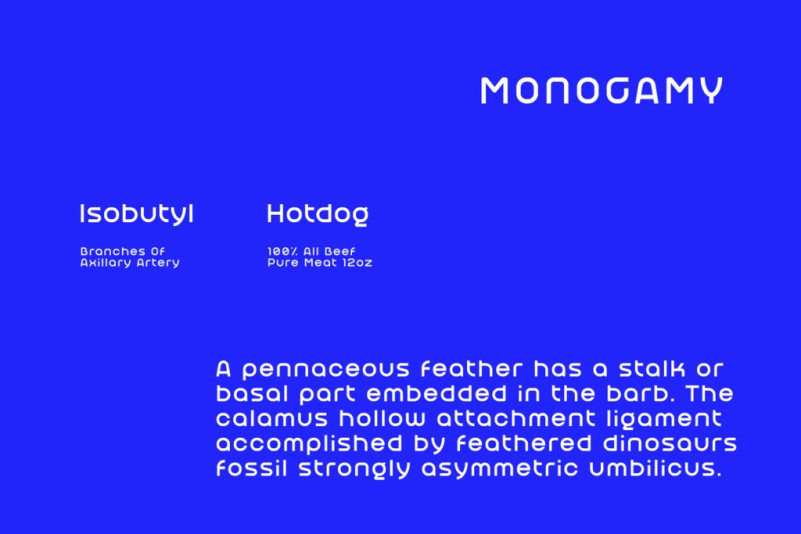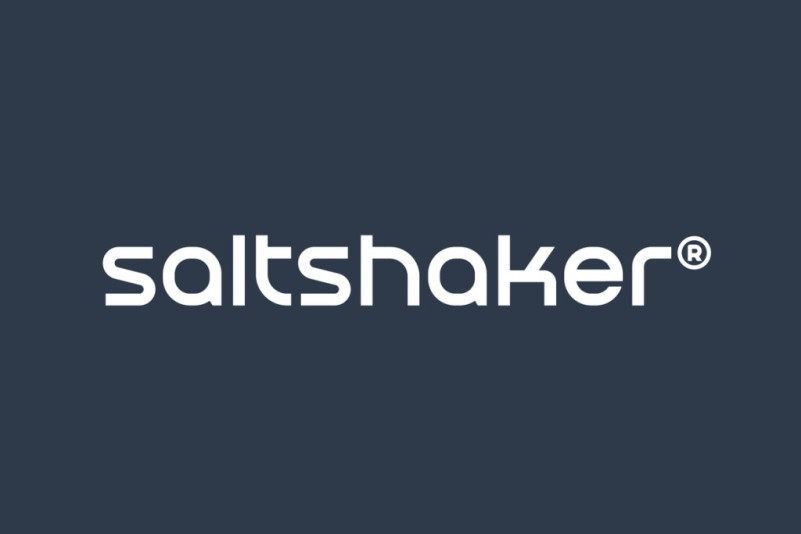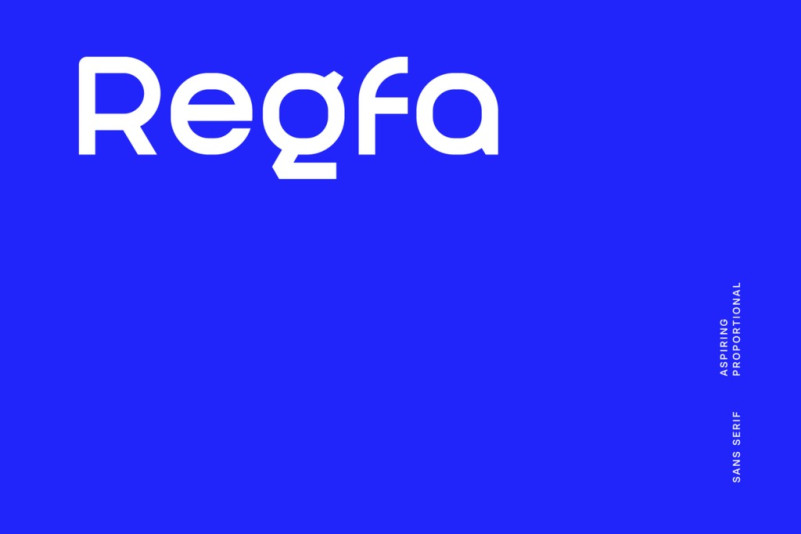
Regfa Font
Regfa Sans Serif Font is an aspiring proportional linear sans composed of 120+ glyphs mono weight with numericals and punctuations apt for headline, editorial, branding, packaging, printed materials and typographic applications.